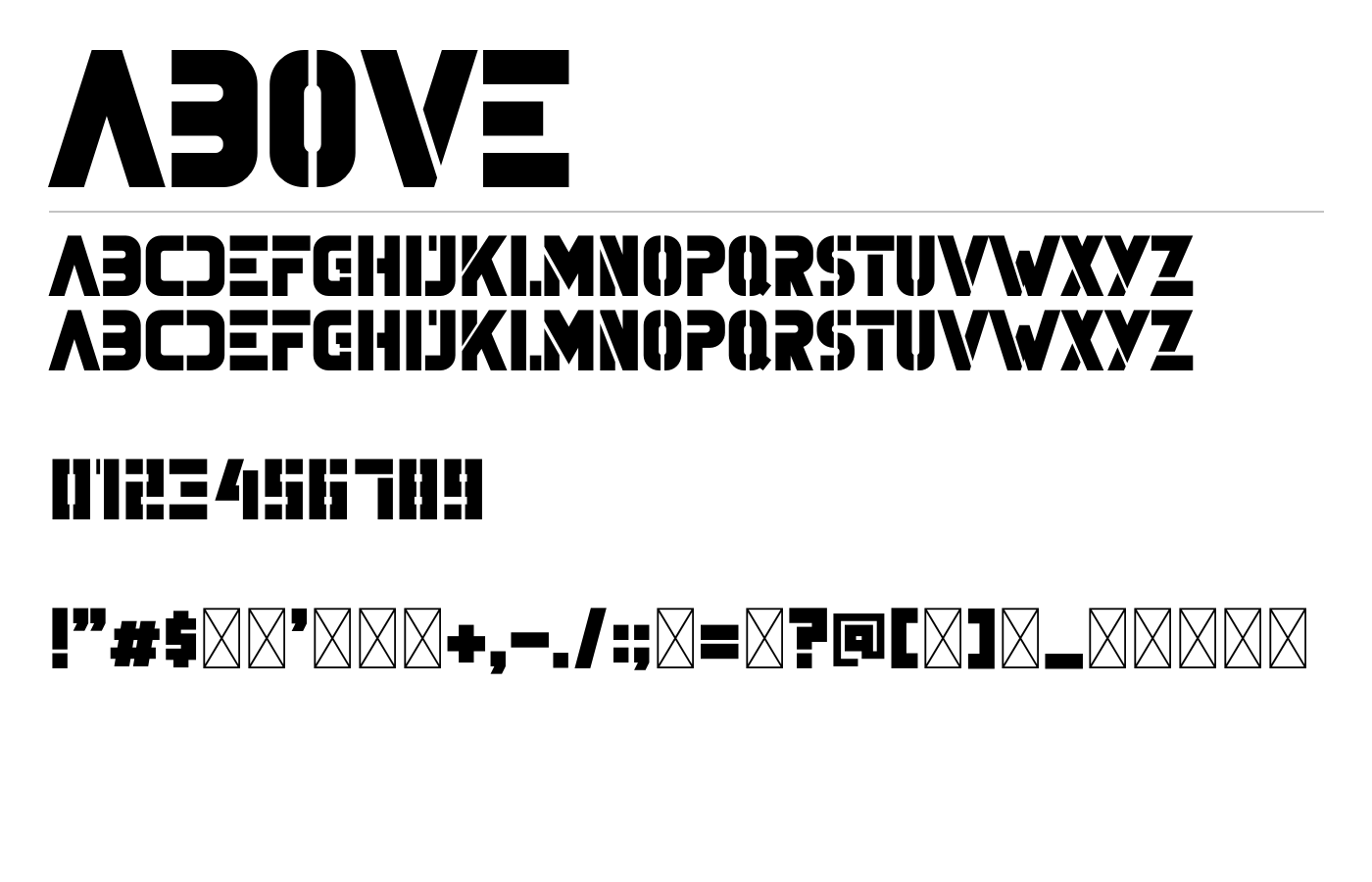
Above Font is a bold, condensed sans serif typeface with a striking, stencil-like design that combines geometric shapes and sharp angles. Its strong contrast and unique letterforms give it a modern, industrial feel, making it ideal for impactful headlines, logos, and futuristic branding where attention-grabbing style is key. This font works best in creative, urban, or tech-oriented projects seeking a bold, unconventional expression.
Above Font
About Above Font